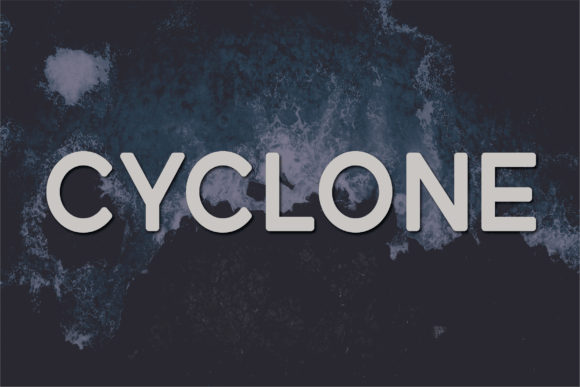
Introduction to Cyclone Font
Cyclone is a versatile, modern, and classy sans serif font perfect for logos, weddings, invitations, quotes, advertisements, print, magazines, and more.
Add it to your most creative ideas, and notice how it makes them come alive .
Key Features of Cyclone Font
Why Choose Cyclone Font?
Cyclone Font offers exceptional quality and versatility, making it a valuable addition to your design toolkit. Whether you’re creating for personal projects or commercial use, Cyclone Font delivers professional results.